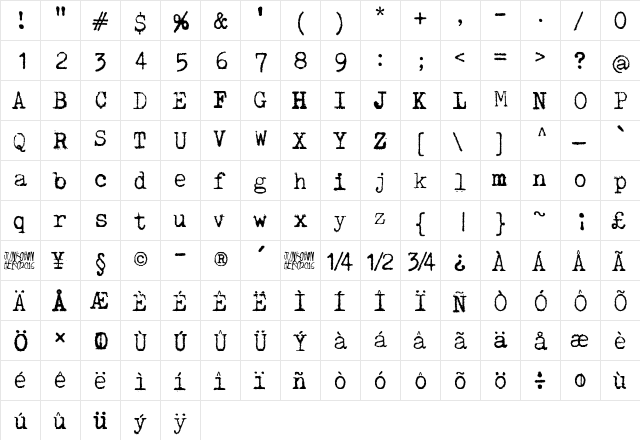
Pelkistettya todellisuutta Regular
Design Context for Pelkistettya todellisuutta Typeface
Pelkistettya todellisuutta is a composed and adaptable typeface that performs quietly and consistently across a wide range of design contexts.